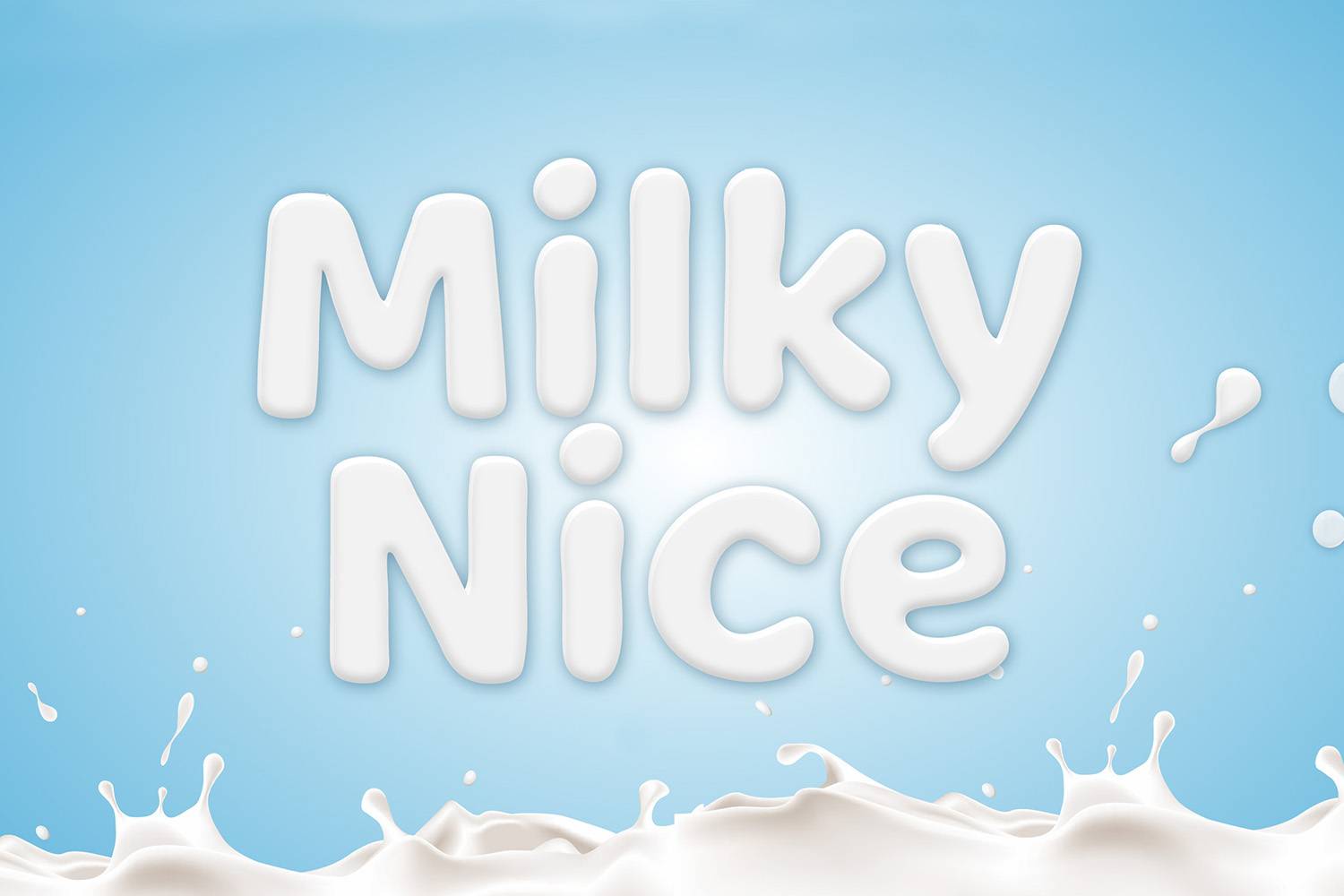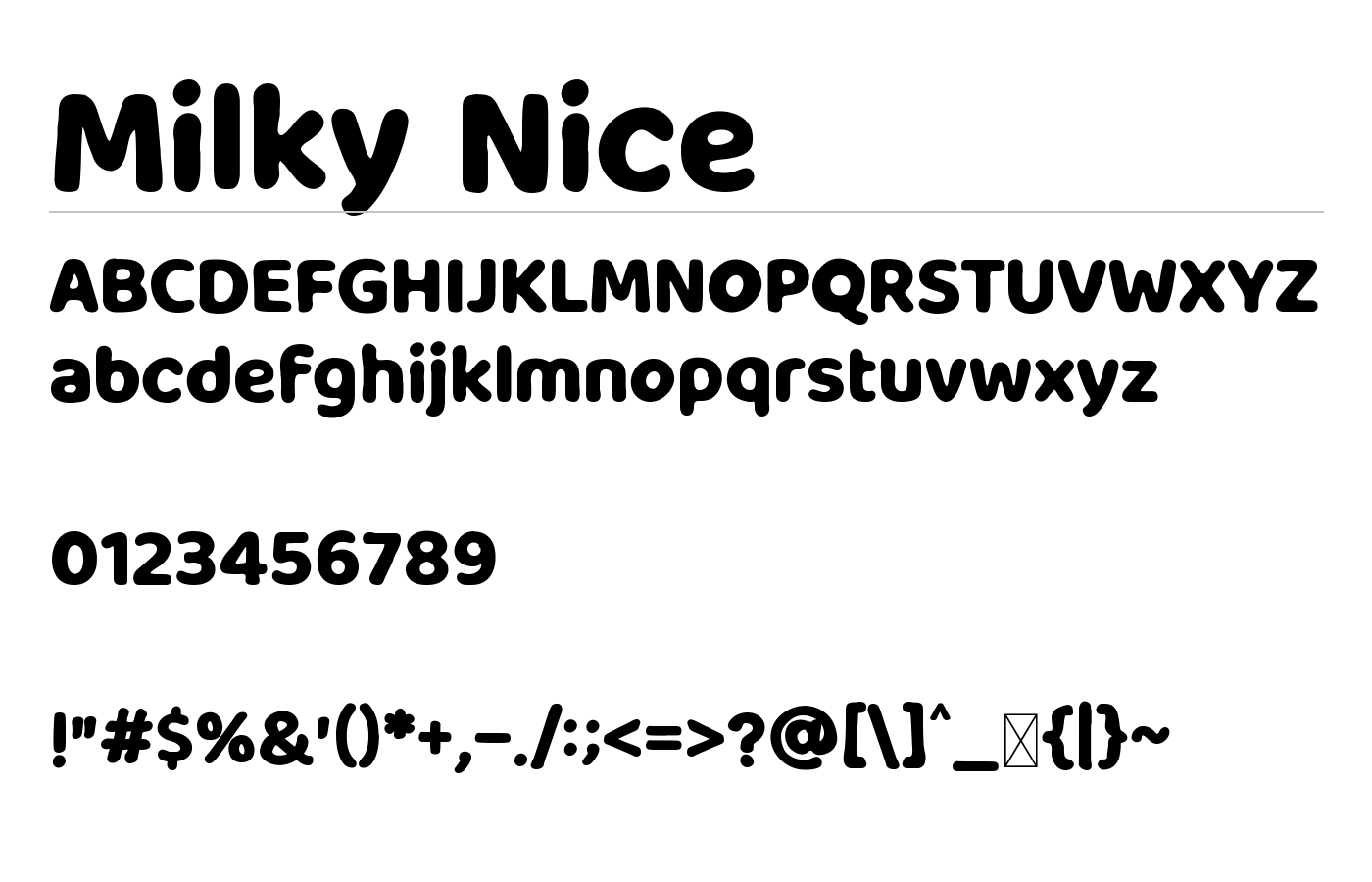
Milky Nice is a friendly, rounded sans serif font that features a bold weight and a slightly condensed width, giving it a warm and approachable feel. Its smooth, soft strokes and simple letterforms make it ideal for playful, casual designs, perfect for children's books, branding, and fun editorial projects. This font works particularly well in headlines and logos where a cheerful, informal personality is desired.
Milky Nice Font
About Milky Nice Font